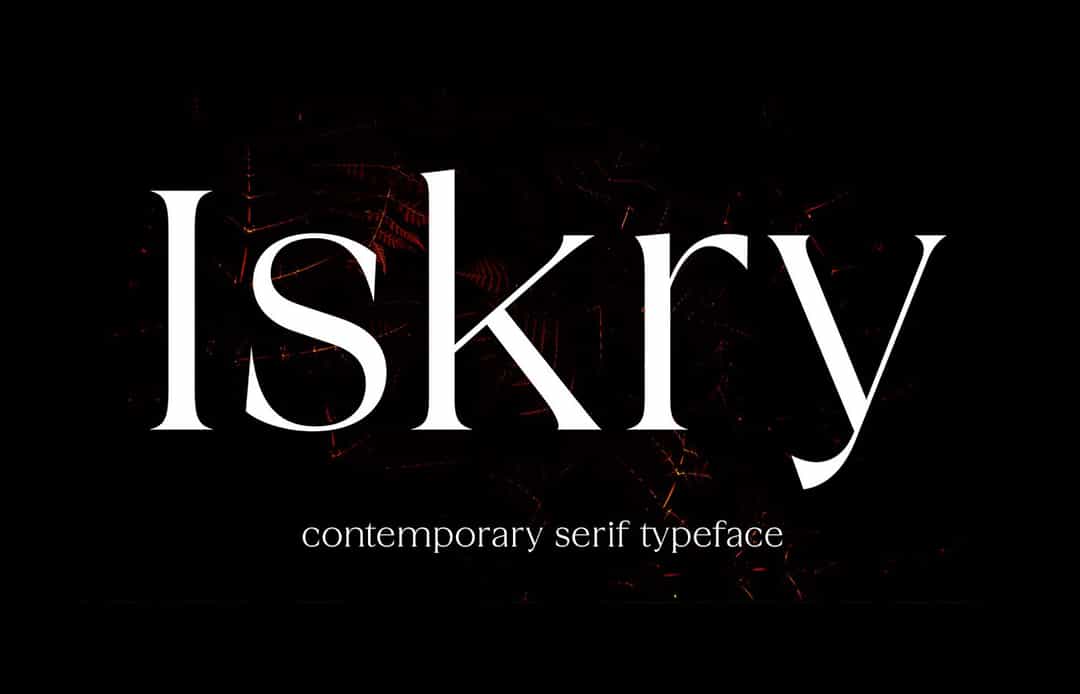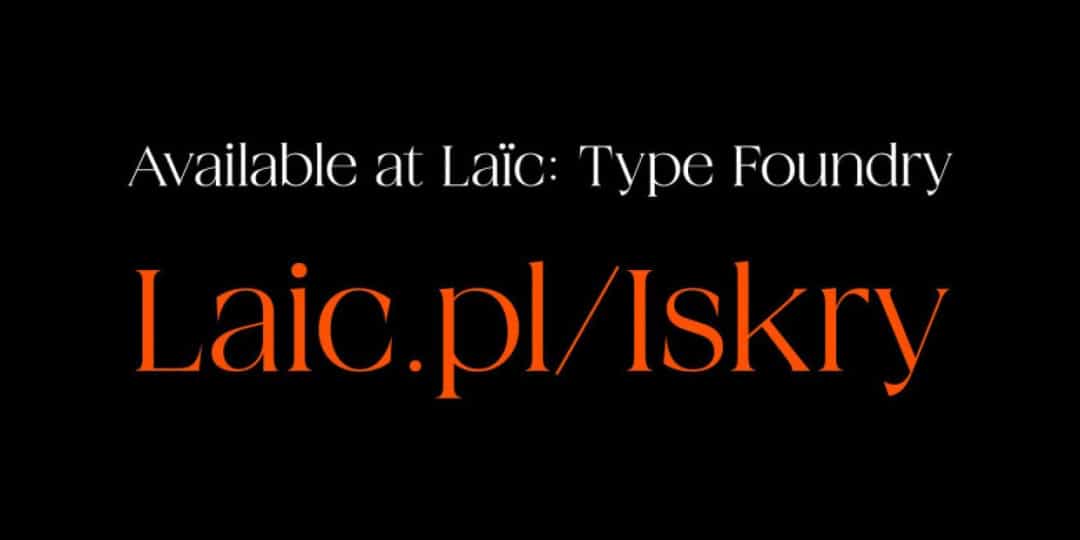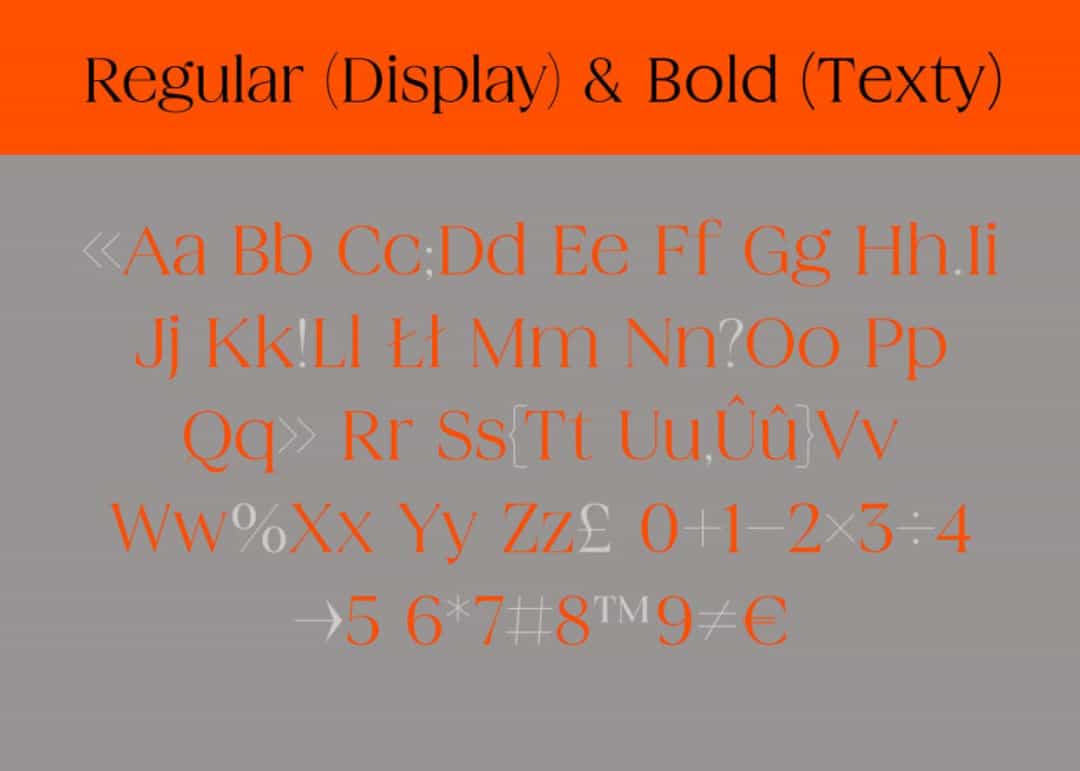
Iskry font is an eye-catching serif typeface designed for display-oriented use. Featuring a tall x-heigt and small yet sharp serifs, its goal is to add character and beauty to digital images.